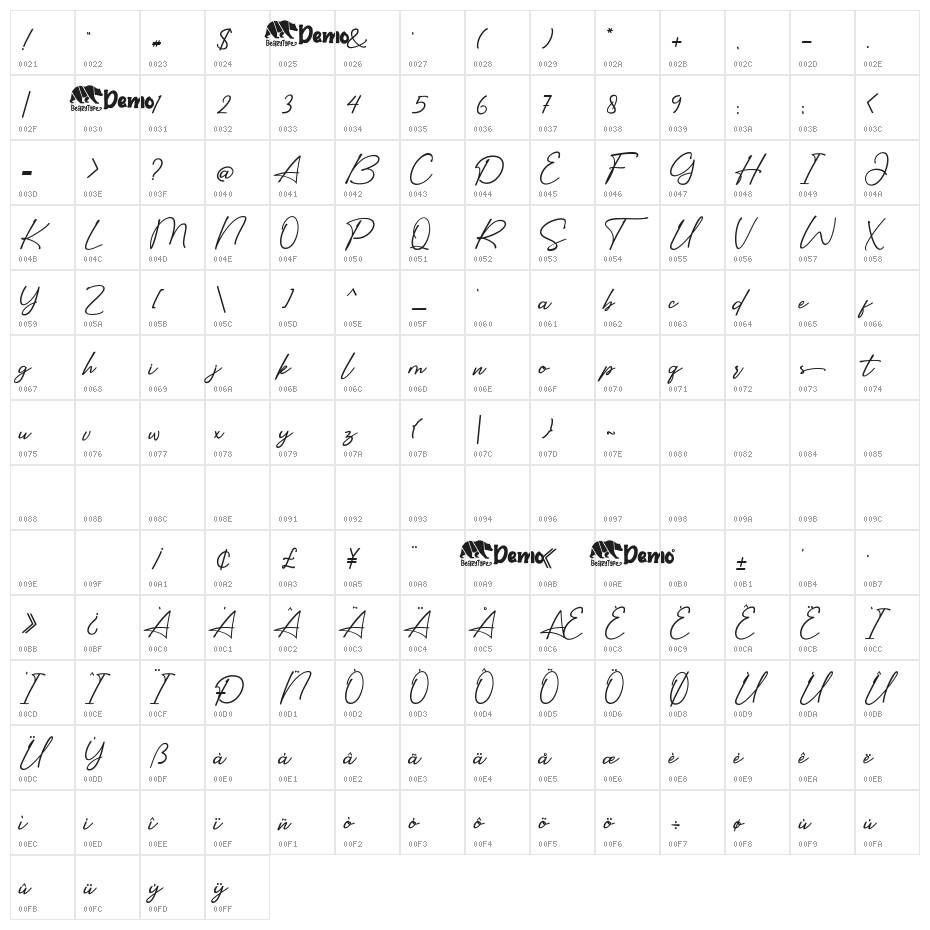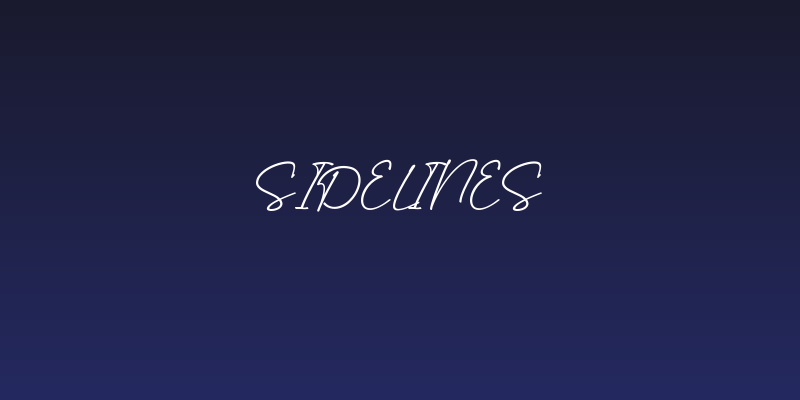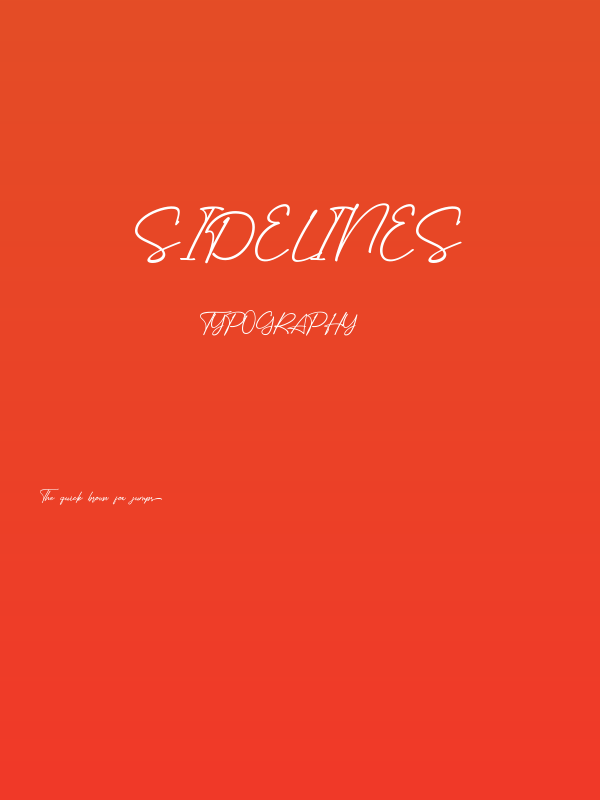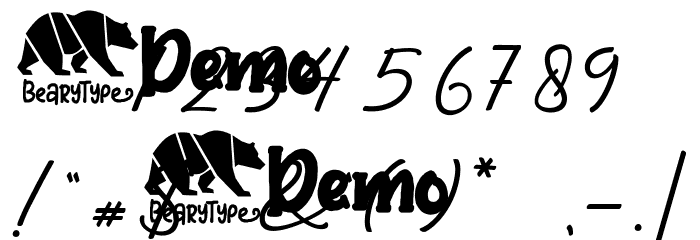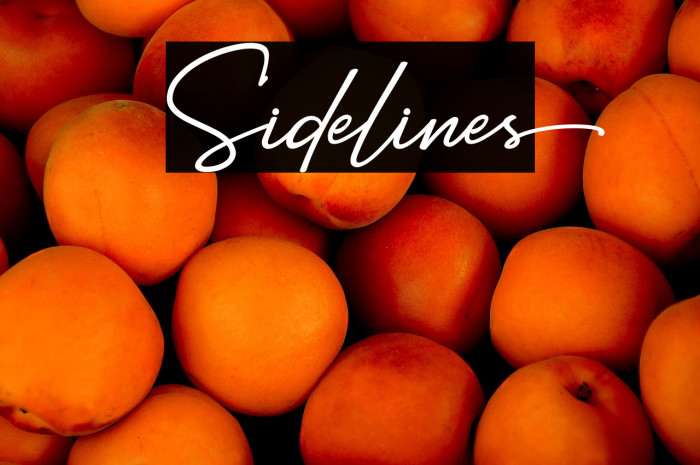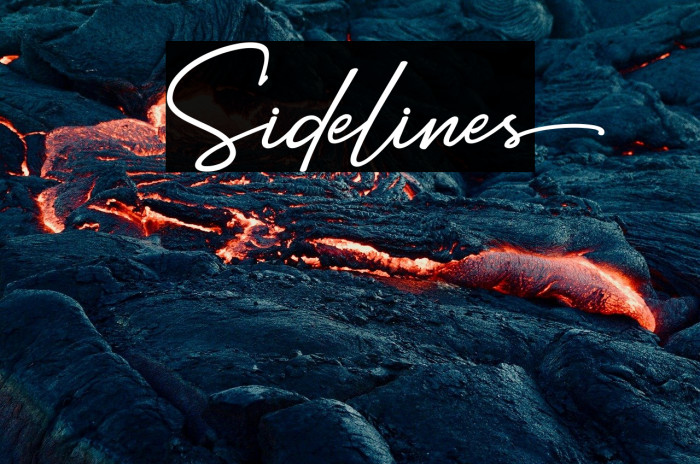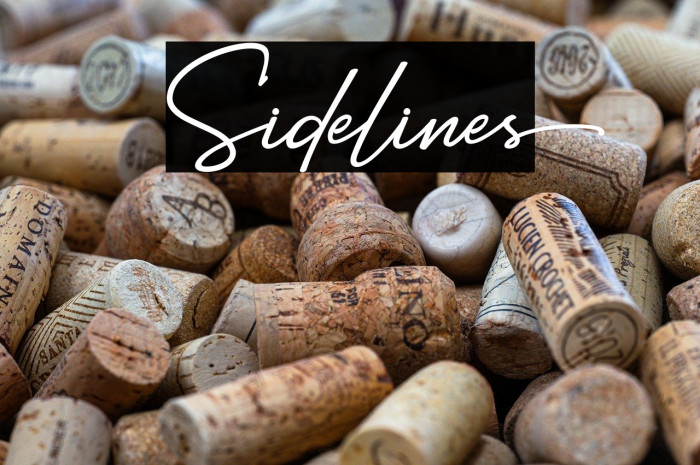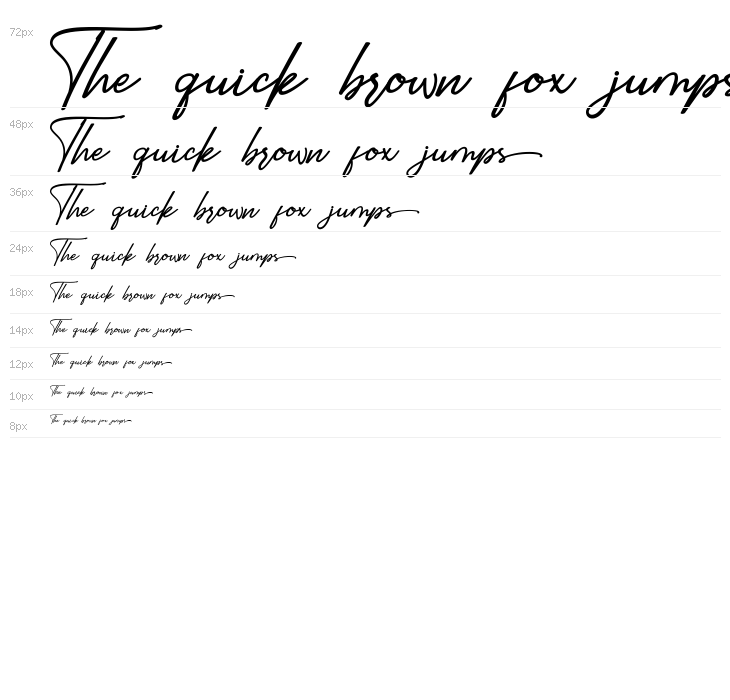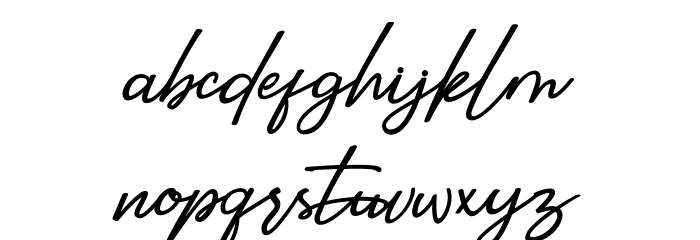
Sidelines Font
Sidelines Description
This font exhibits a flowing, cursive style that mimics natural handwriting, giving it an elegant and personal touch. The uppercase letters are slightly more elaborate, with extended loops and curves, while the lowercase letters maintain a consistent, smooth flow. The numbers and special characters complement the alphabet with a similar handwritten appearance. The overall design is both sophisticated and approachable, making it suitable for a variety of creative applications. The font maintains a consistent stroke width, providing a balanced and harmonious look.
| Proposed Projects | Ideal for wedding invitations, personal branding, greeting cards, and artistic projects. |